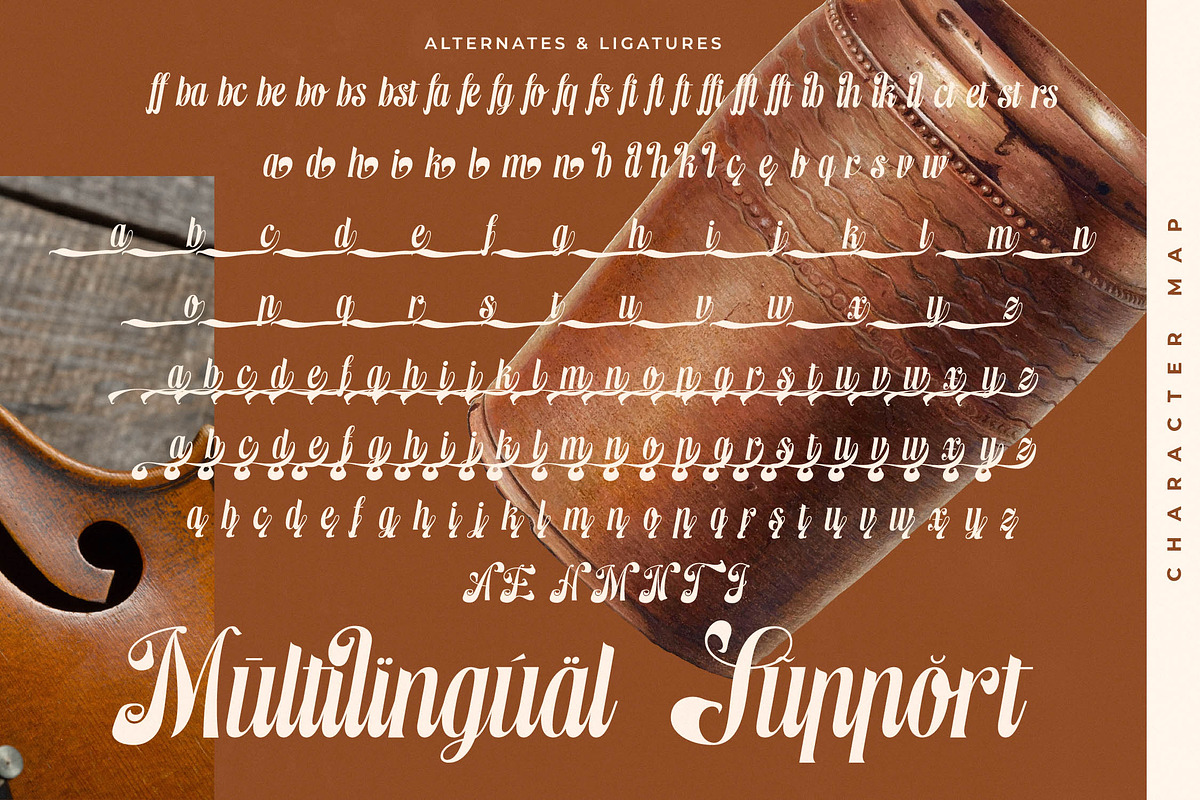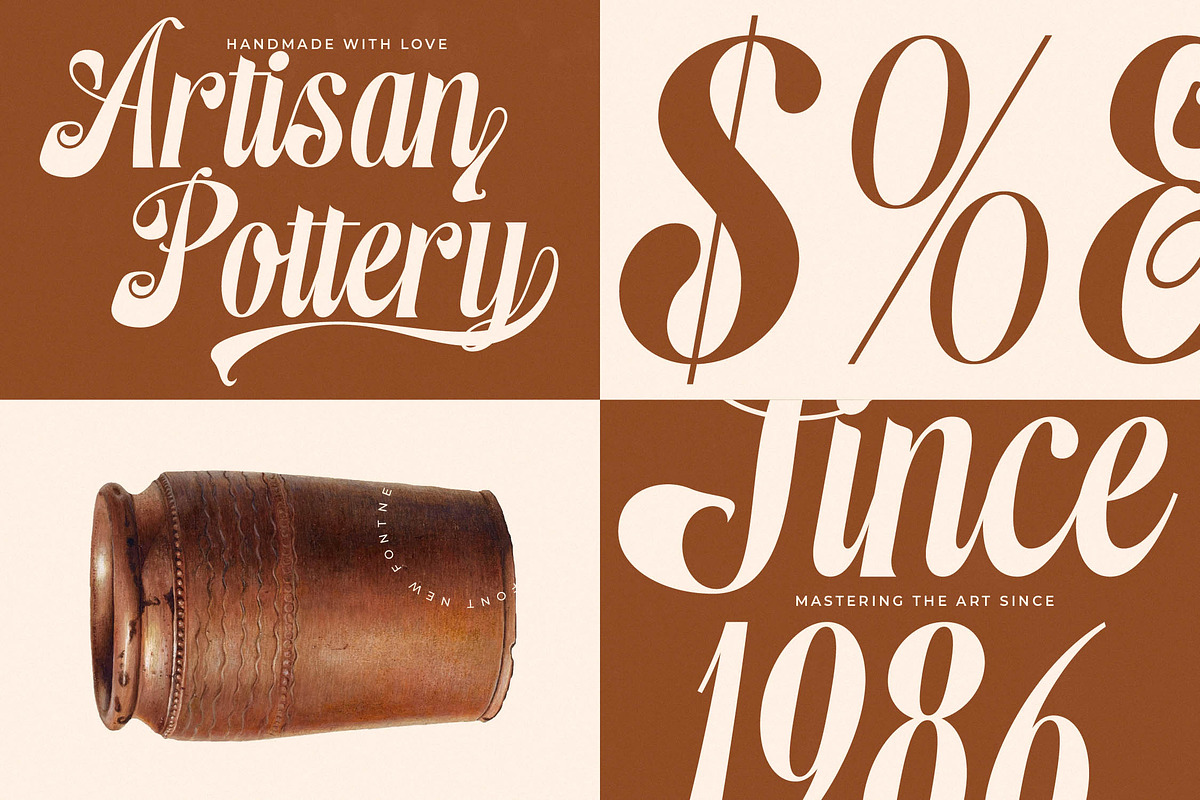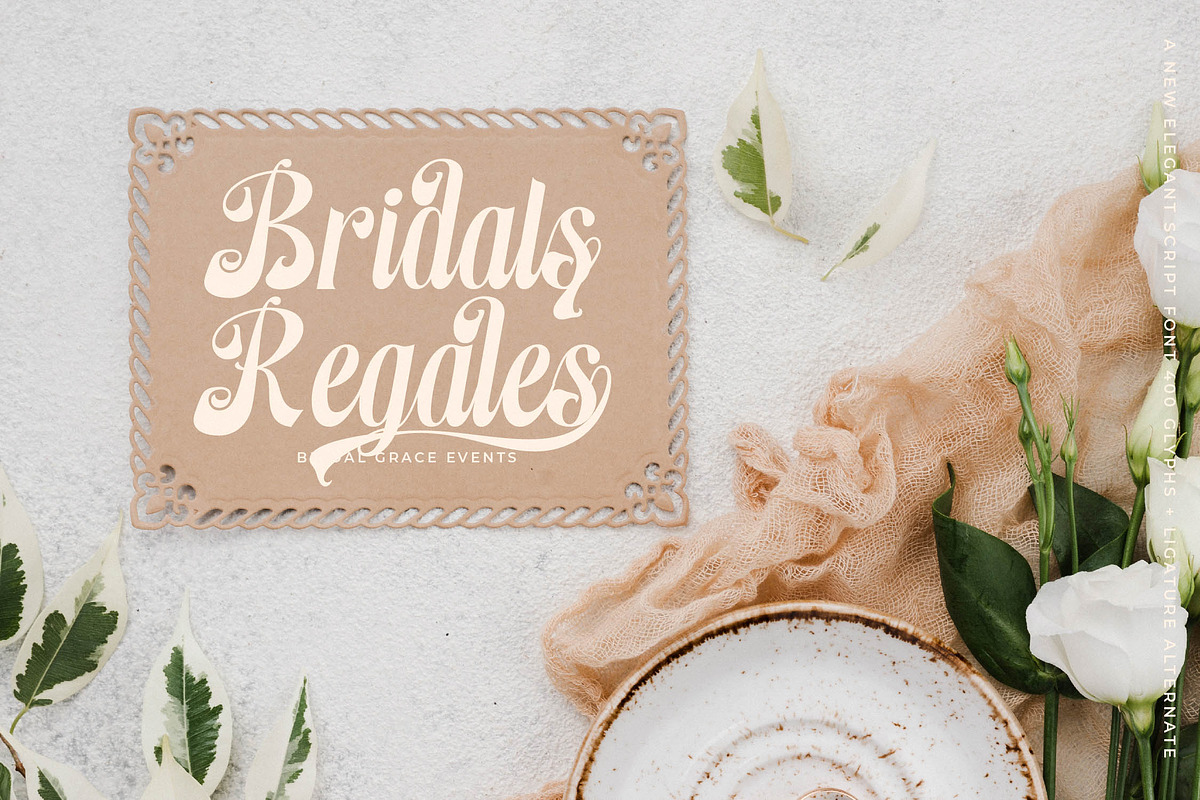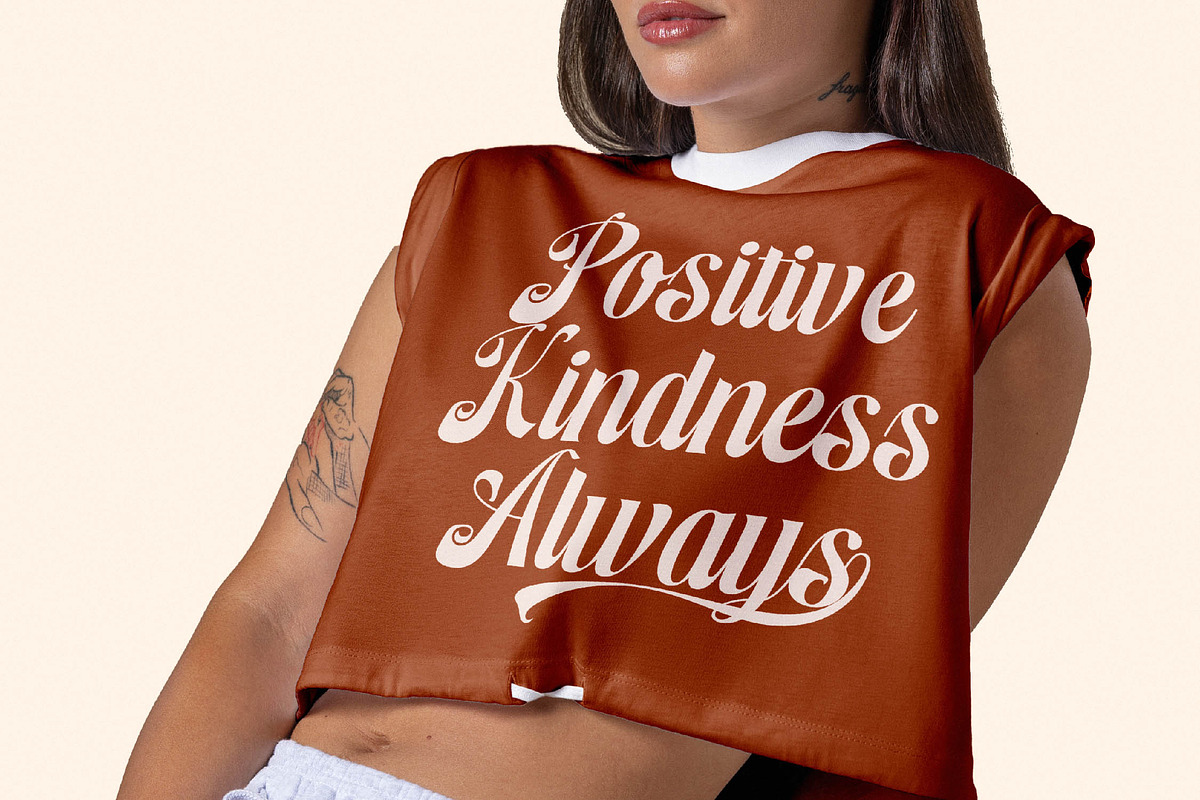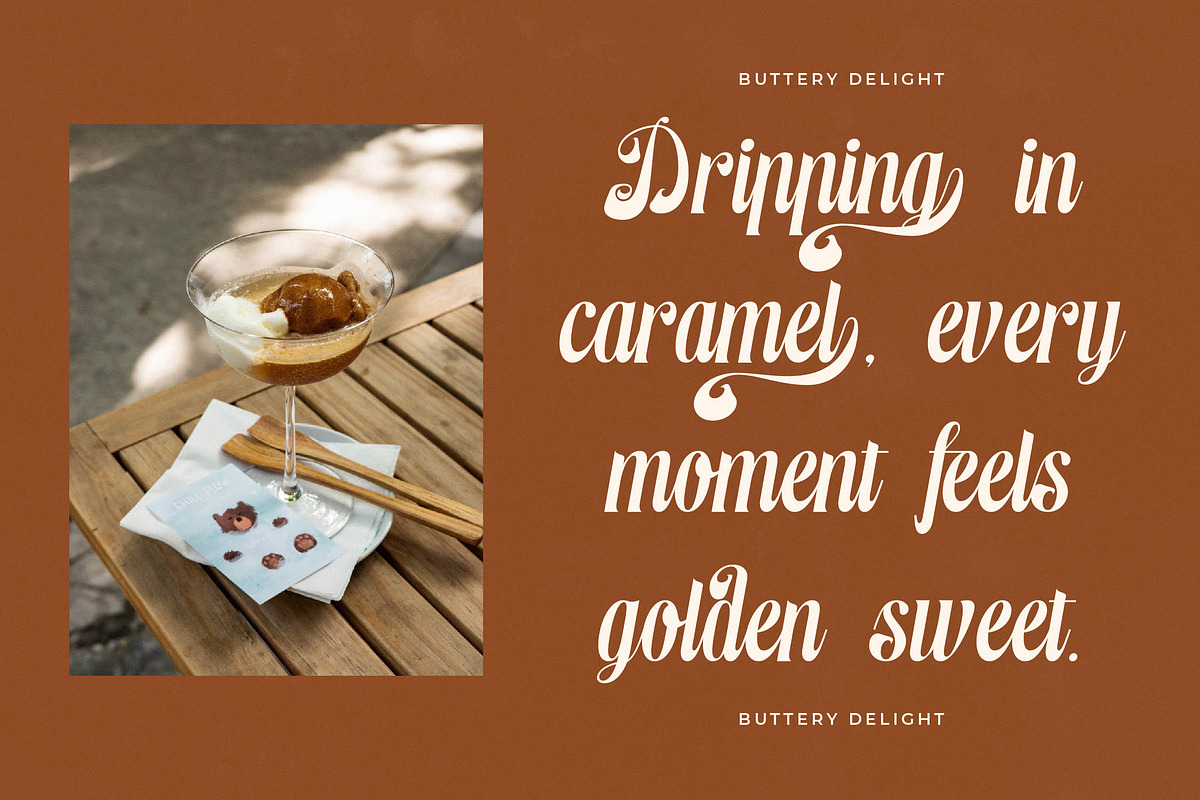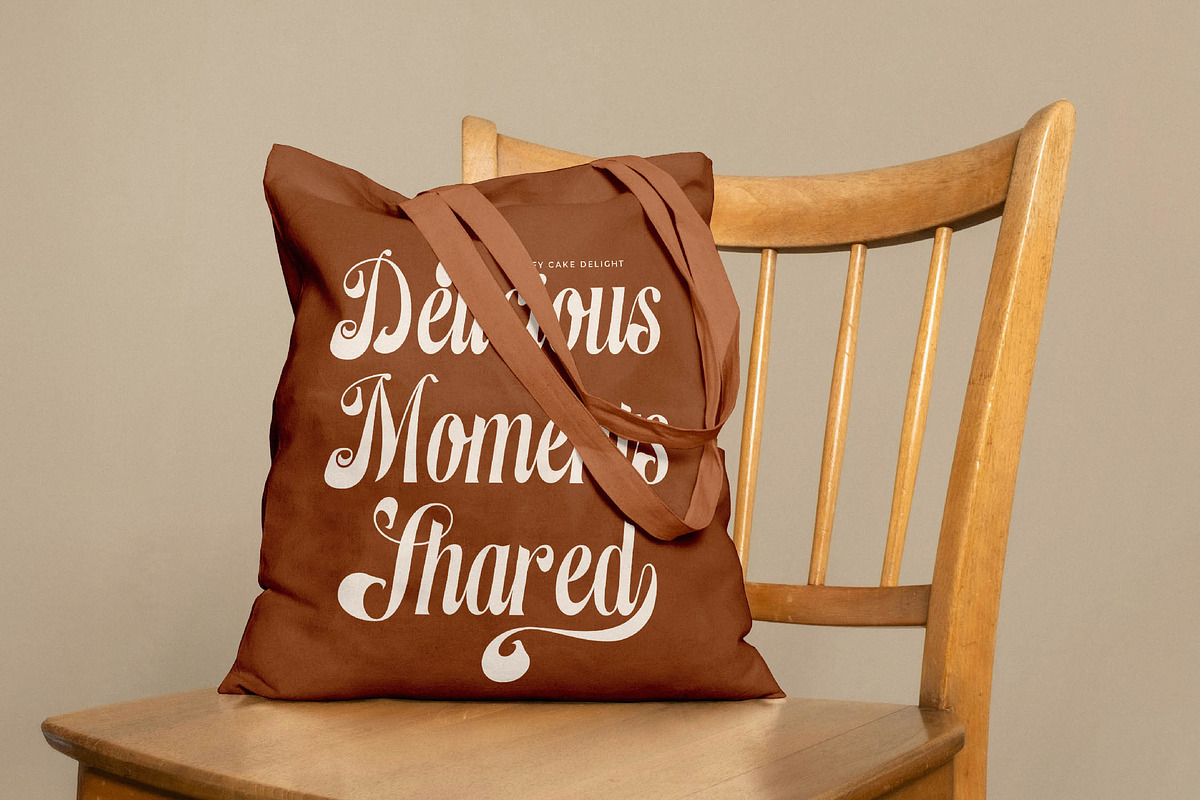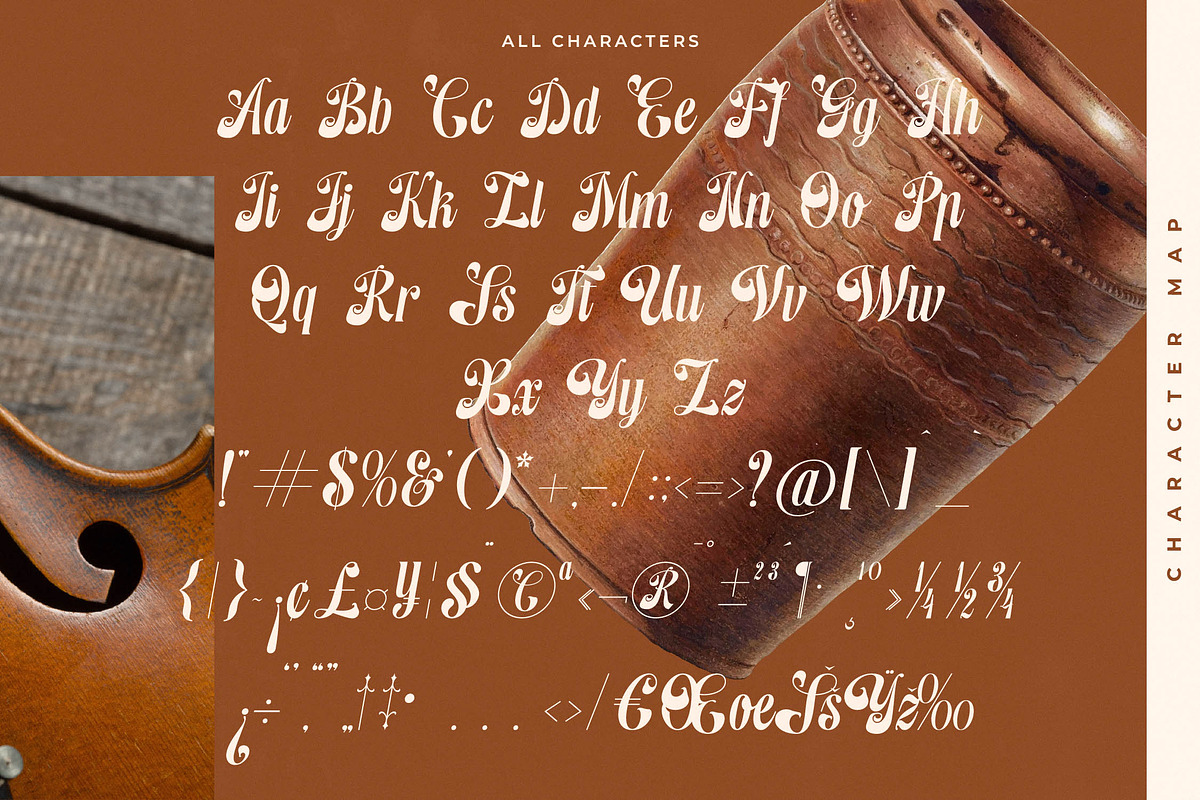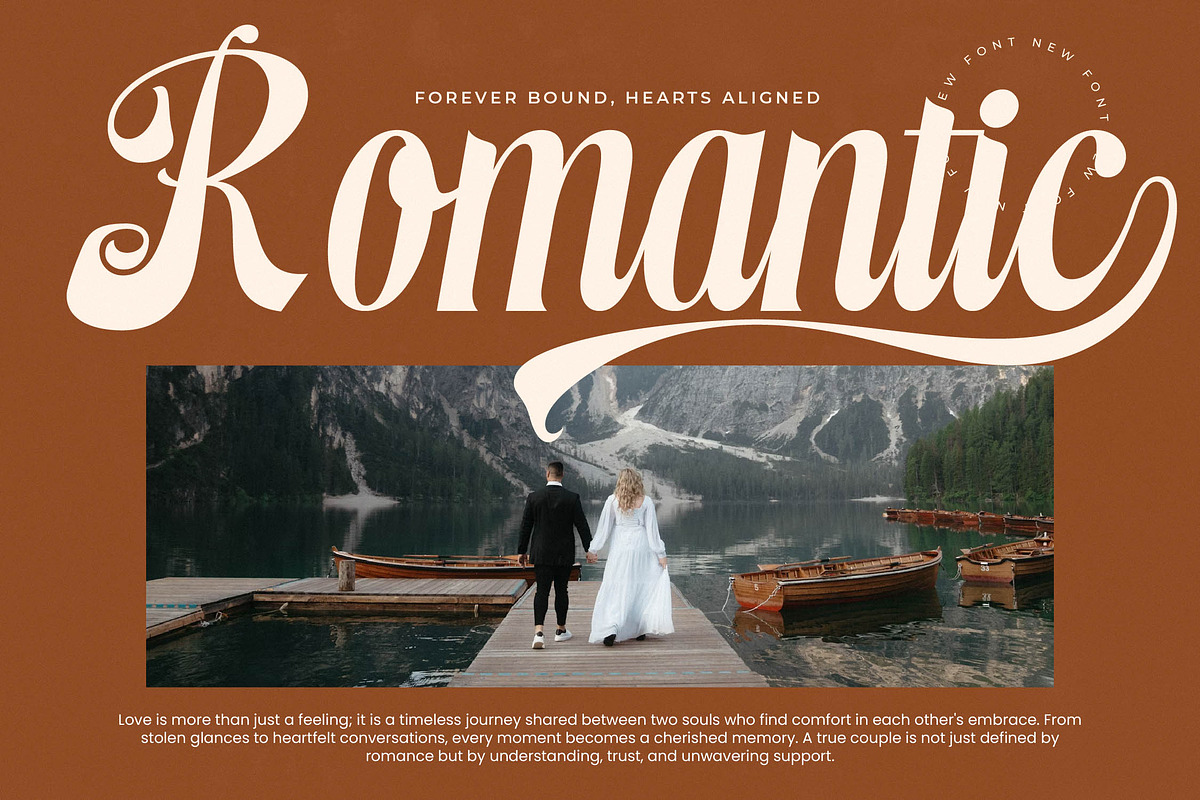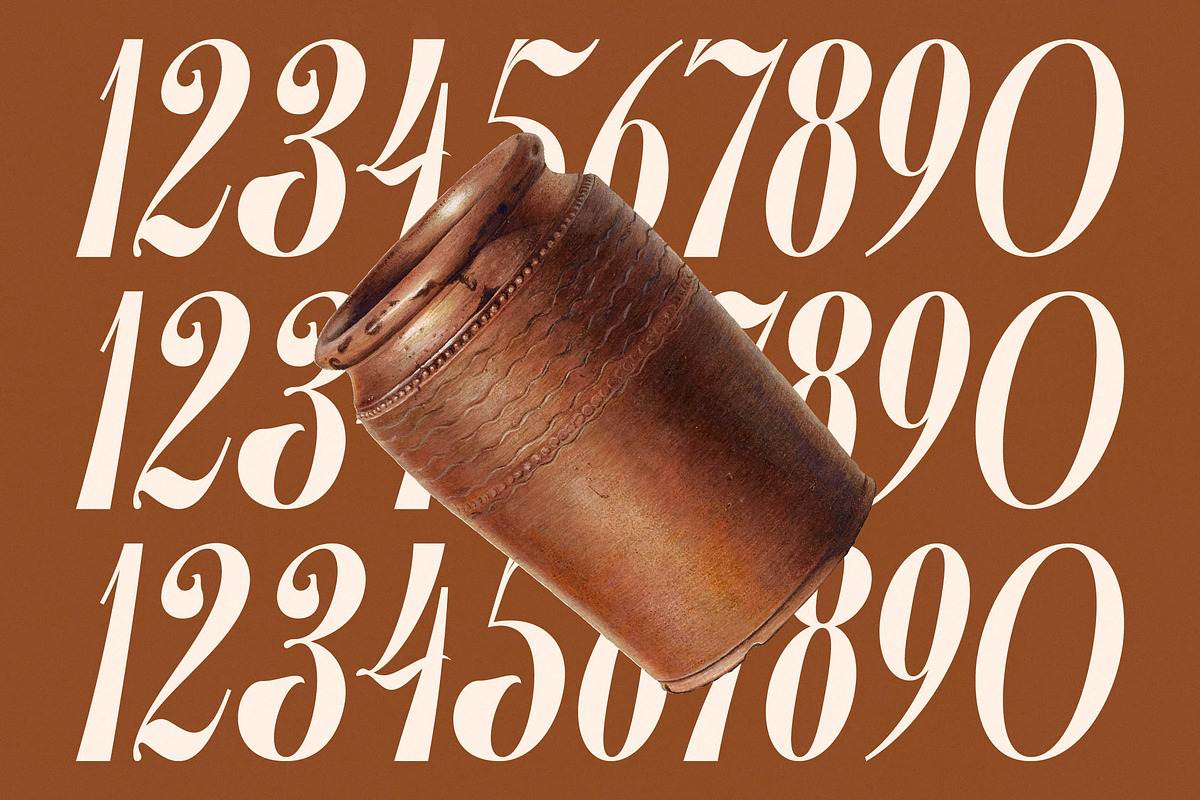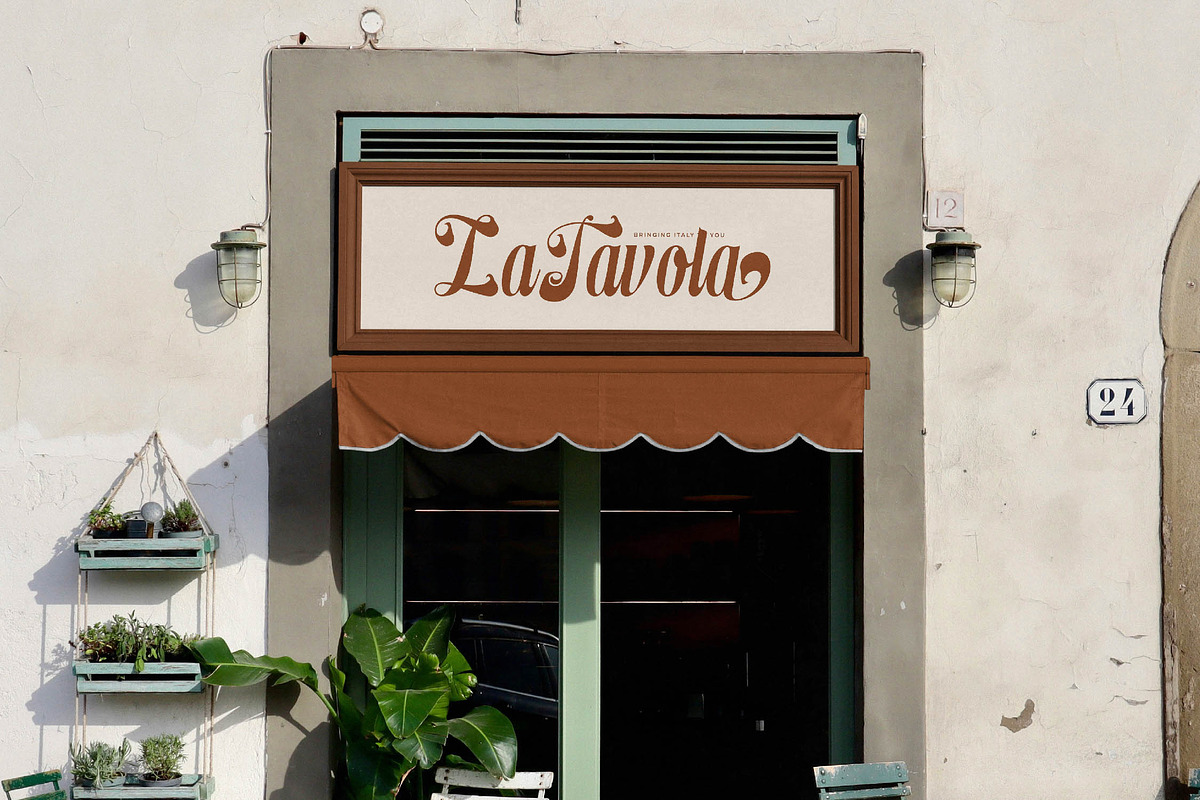
Hedmesa: Elegant Script Font
Elevate your creative vision with Hedmesa, a stunningly fluid script that captures the essence of refined craftsmanship. This font is designed to bring a touch of soulful artistry to every stroke, making it a definitive choice for high-end design projects.
Inspired by the timeless silhouettes of classical pottery and the melodic curves of a violin, Hedmesa reflects a heritage-driven aesthetic. It evokes a sense of warmth and history, blending traditional calligraphy with a polished, contemporary execution that feels both grounded and ethereal.
Exuding a sense of luxury typography and branding impact, this font functions as a modern serif display alternative that prioritizes flow and rhythm. It offers the weight of a high-contrast serif with the grace of hand-lettering, creating an editorial font experience that is impossible to ignore.
As designers lean into the modern serif trend, Hedmesa provides a unique perspective on character-driven typography. It perfectly aligns with the demand for editorial display fonts that feel personal and bespoke, bridging the gap between vintage charm and twenty-first-century sophistication.
This versatile typeface excels in logo design and high-concept branding, providing an instant sense of prestige for wedding invitations and fashion lookbooks. Whether it is applied to luxury packaging or high-end editorial layouts, its graceful swashes ensure your message is delivered with absolute class.
Each set comes packed with an expansive library of 492 glyphs, including sophisticated ligatures and creative alternates. With a full suite of decorative swashes, multilingual support, and international characters, Hedmesa is globally ready for your most ambitious typographic endeavors.
- Ligature 28 Alternate 132